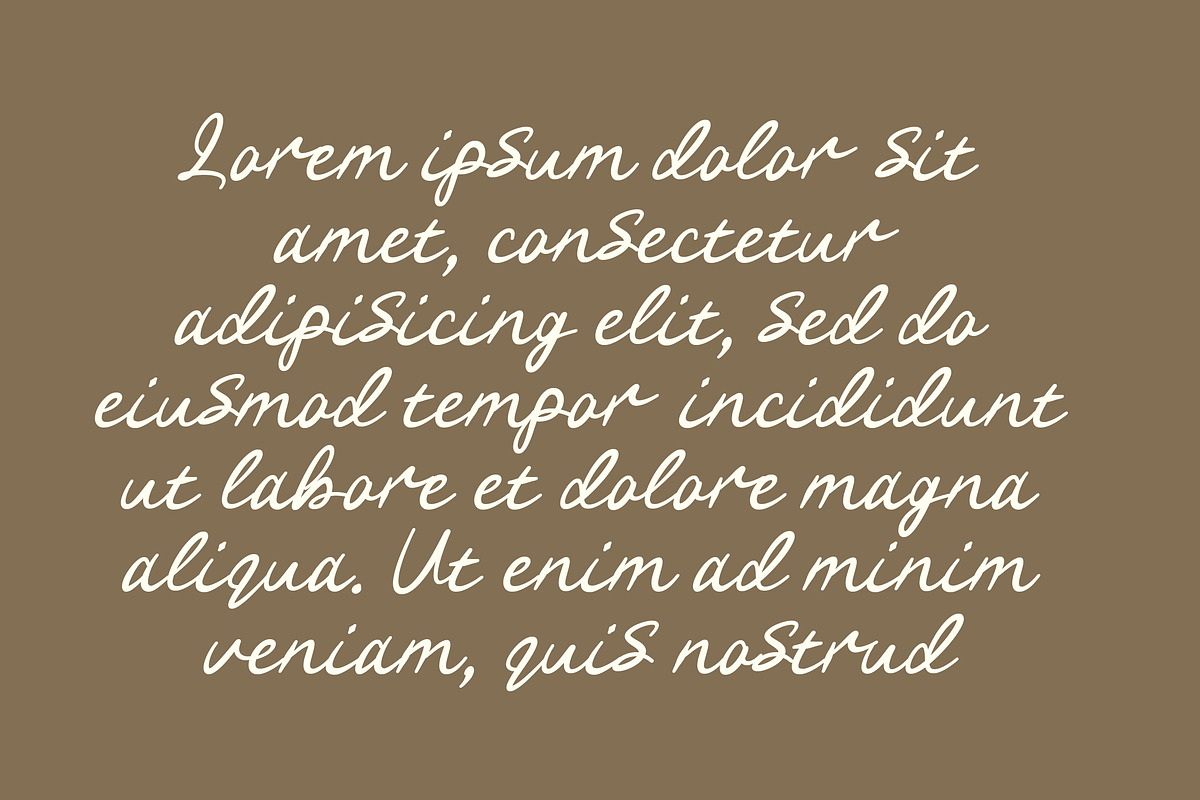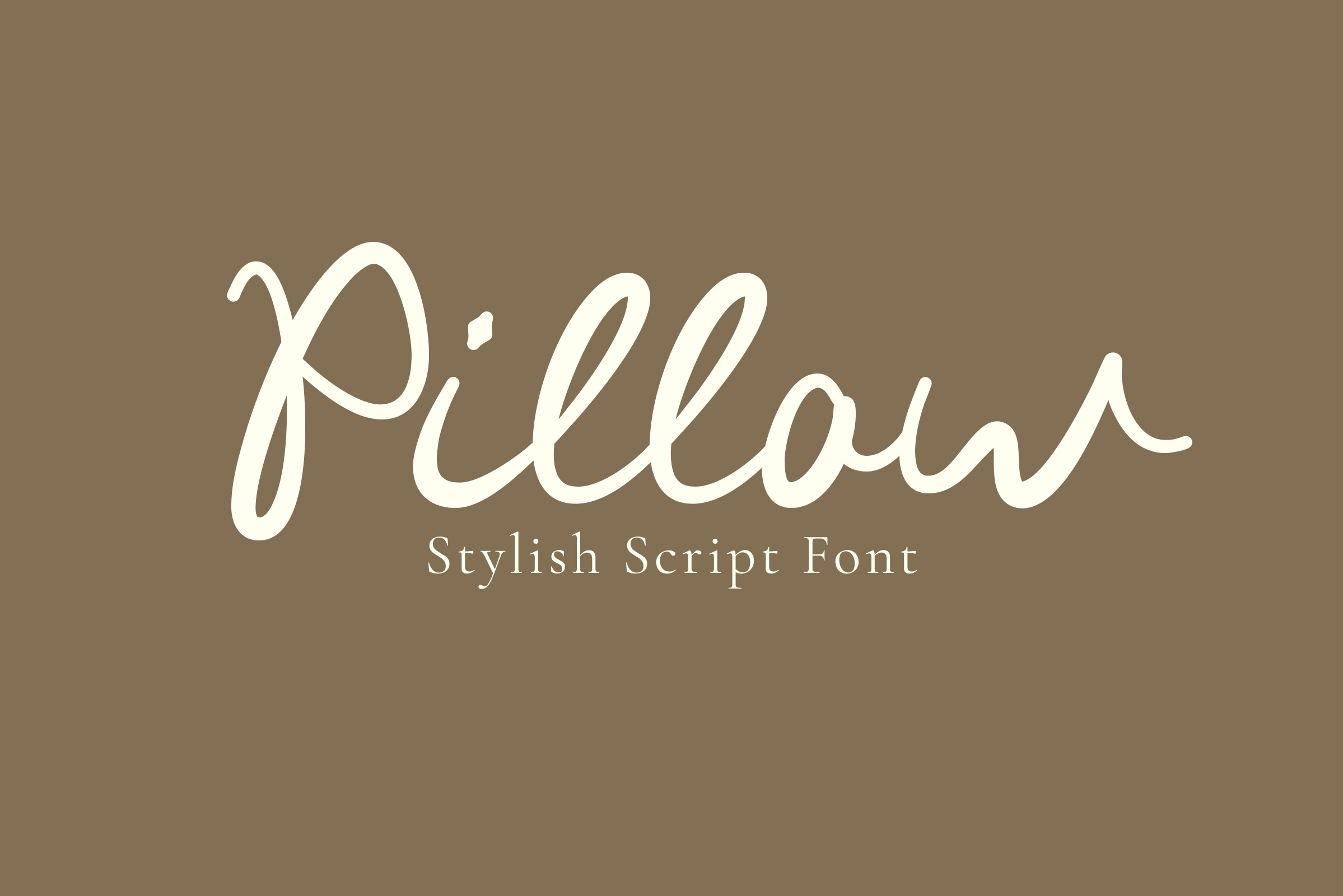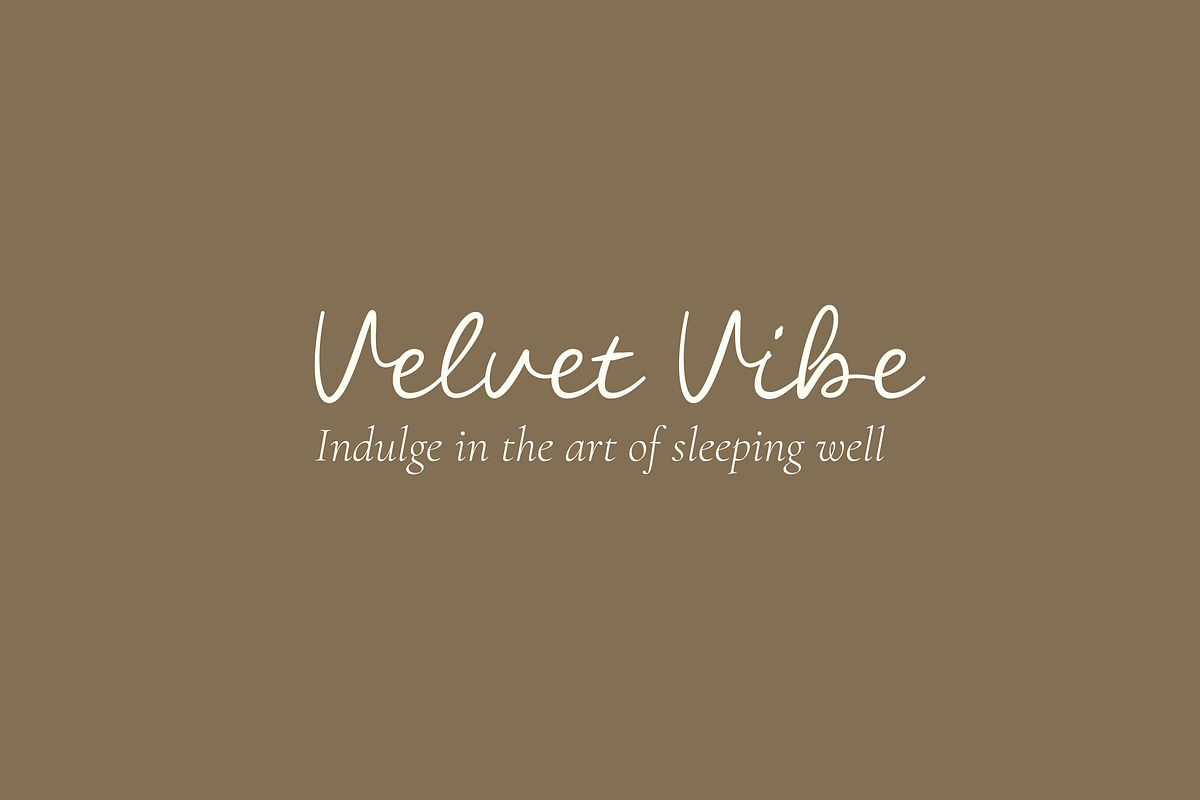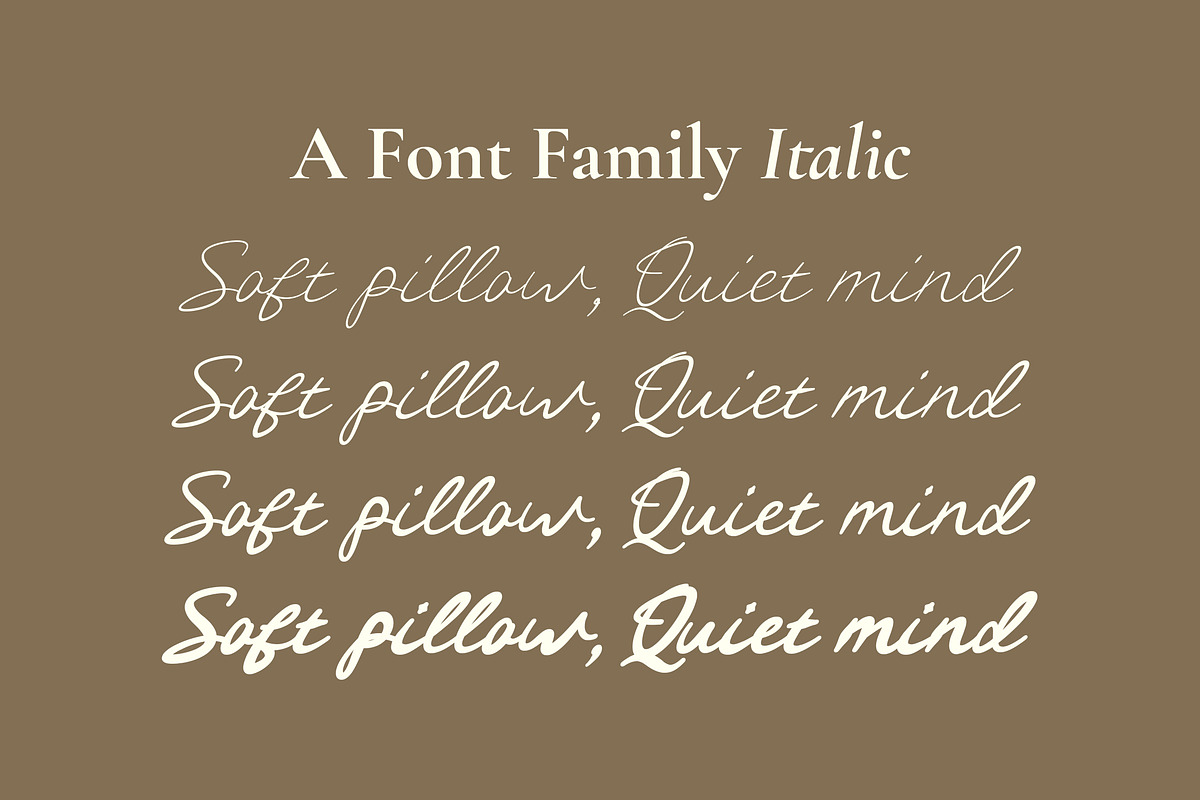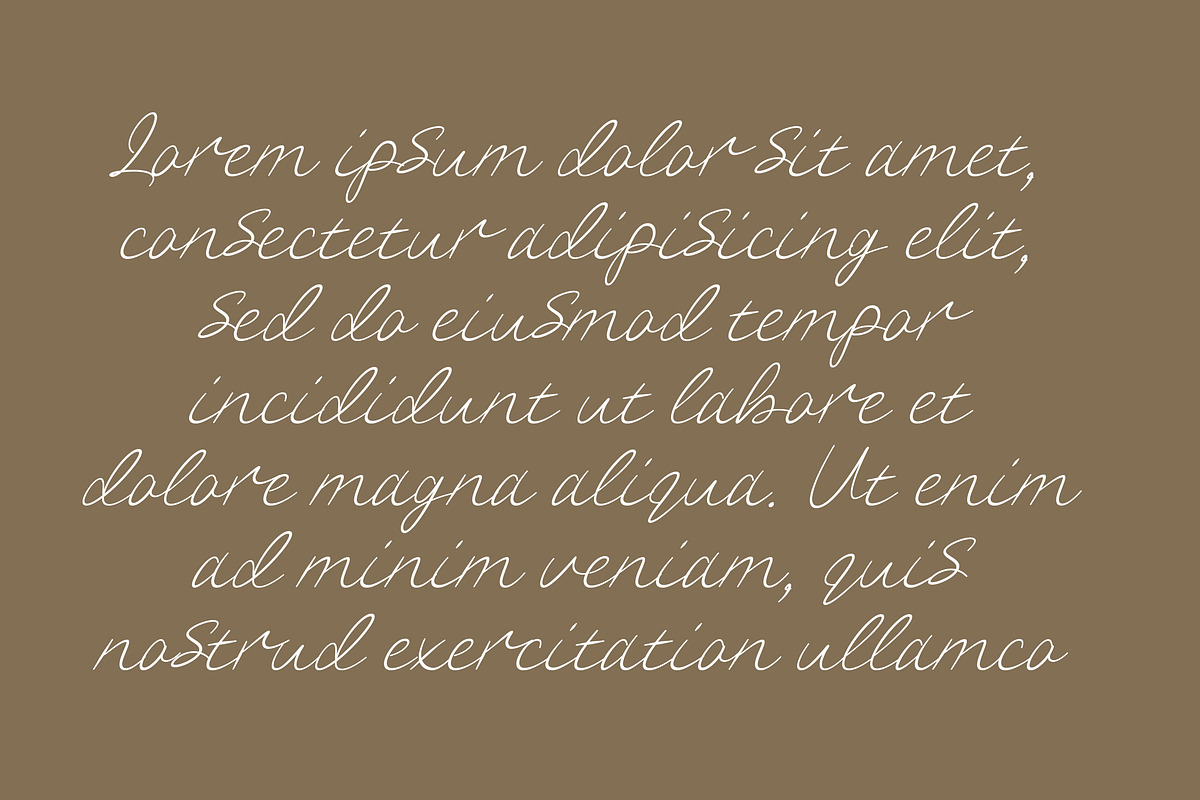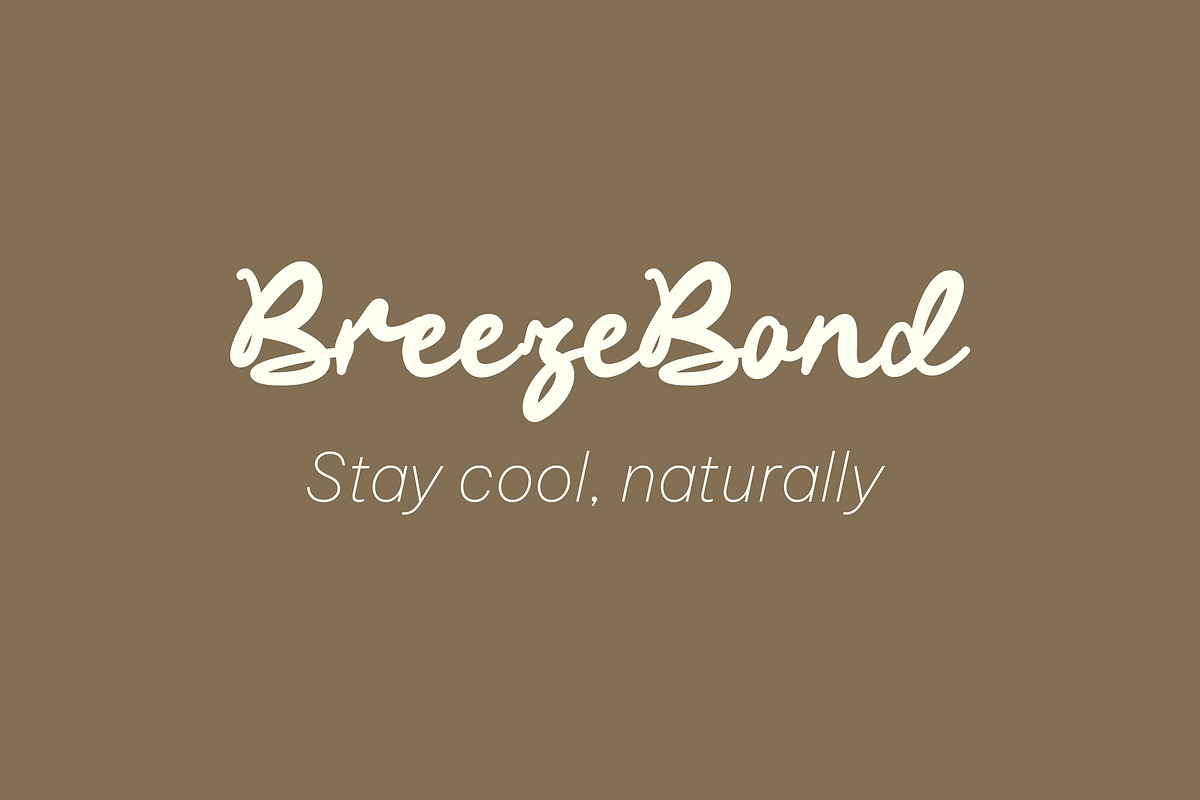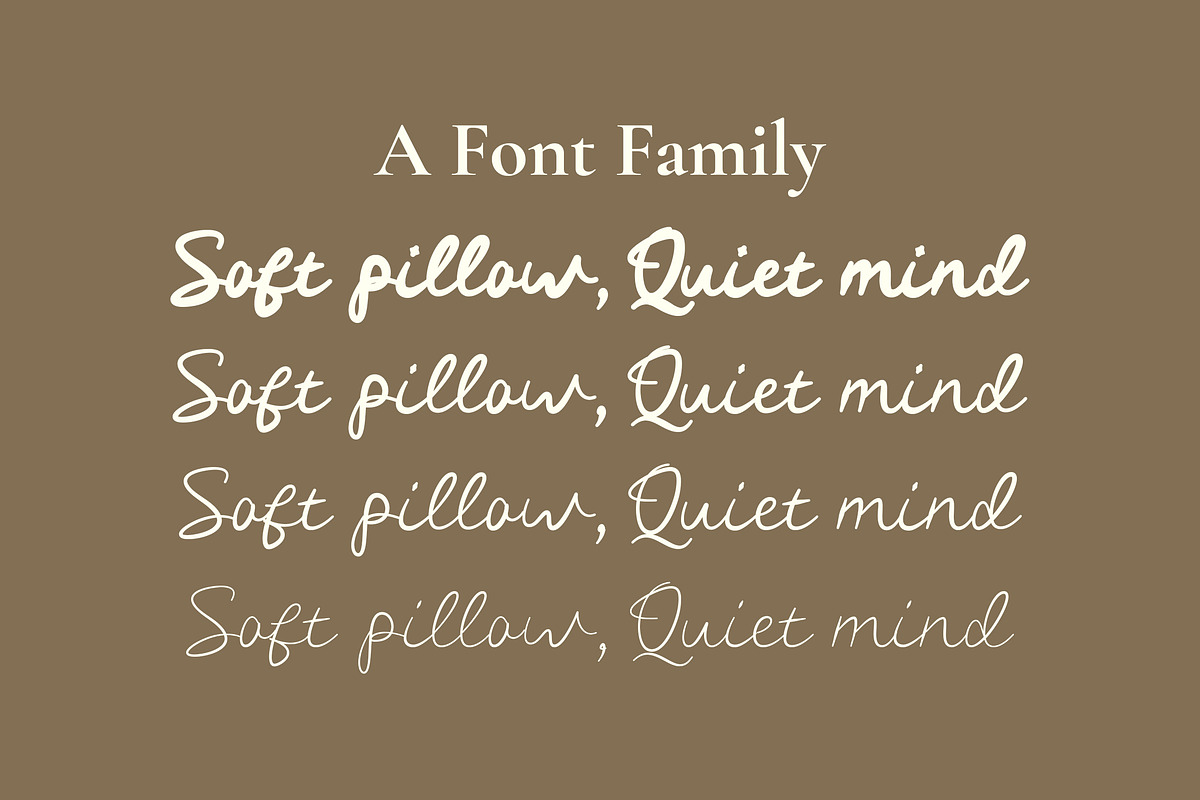
Pillow Script | A Modern Font Family
Pillow Script | A Modern & Versatile Font Family
Indulge your designs in the seamless elegance of Pillow, a modern script font family designed to bring a touch of sophisticated comfort to every project. Like its namesake, Pillow offers a perfect balance of softness and structure, making it an essential tool for designers seeking a refined aesthetic. From the delicate whispers of Thin and Light to the confident presence of Regular and Bold, this family provides the ultimate flexibility. Whether you are crafting high-end branding, intimate wedding invitations, or bold editorial layouts,
Pillow adapts effortlessly to your creative vision. Key Features:
- Complete Family: Includes 4 weights (Thin, Light, Regular, and Bold). - Modern Fluidity: Smooth, flowing strokes for a contemporary look. - Multipurpose Use: Perfect for logos, social media, packaging, and stationery. - Elegant Craftsmanship: Meticulously spaced and kerned for professional results.
Elevate your typography game with Pillow—where modern style meets timeless comfort.